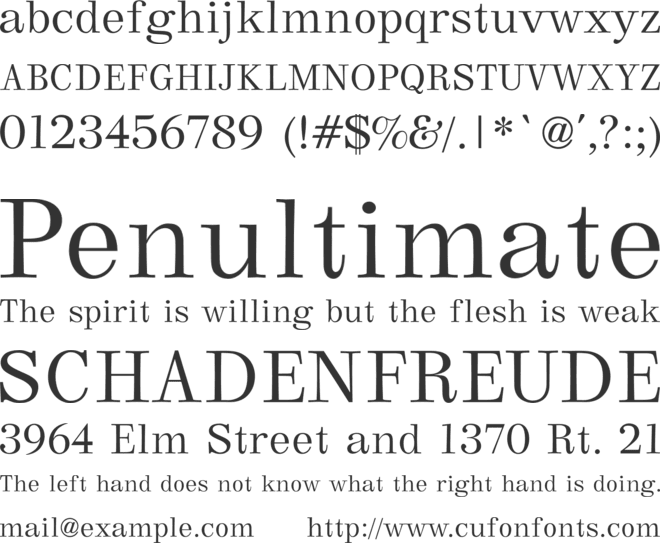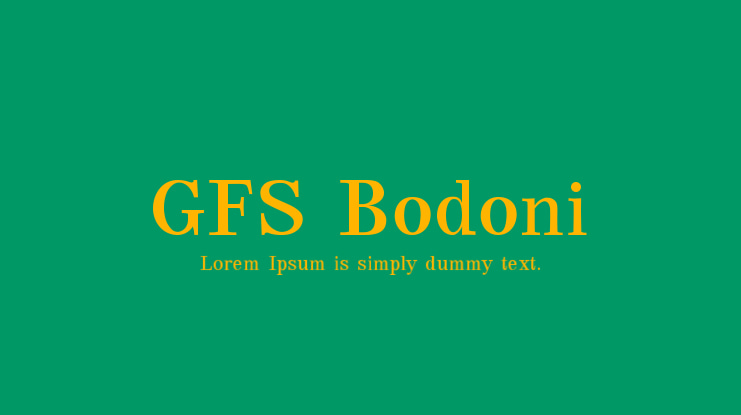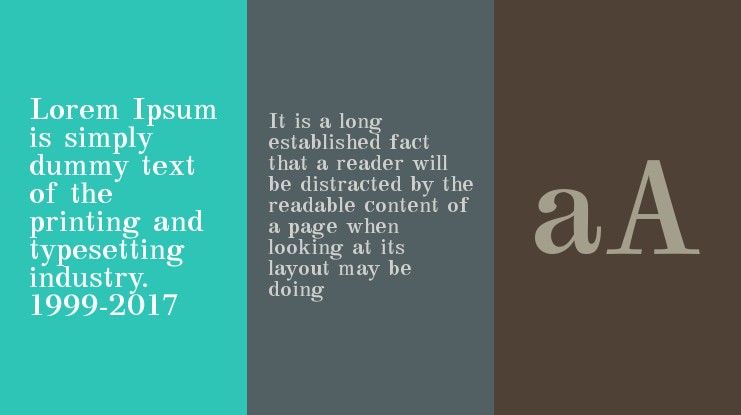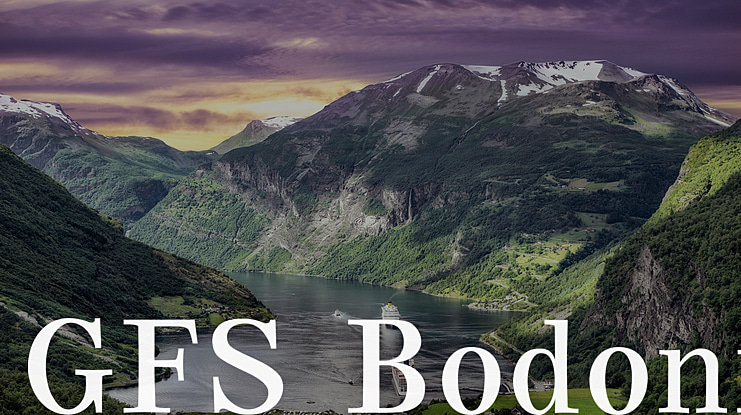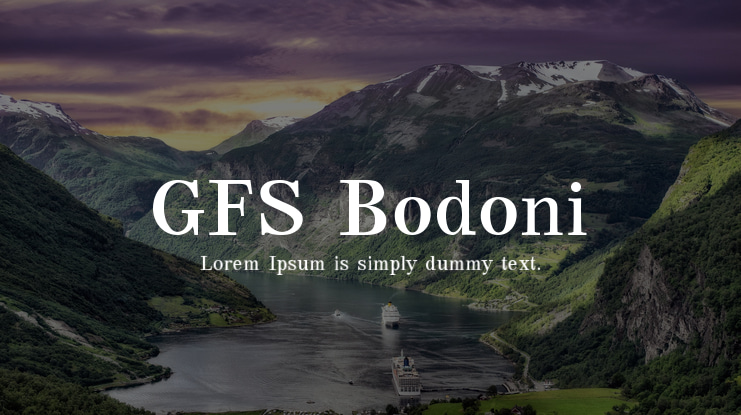
An experimental font based on Bodoni’s Greek types, with a matching Latin alphabet. Designed by Takis Katsoulidis (1992-1993), digitized by George Matthiopoulos.